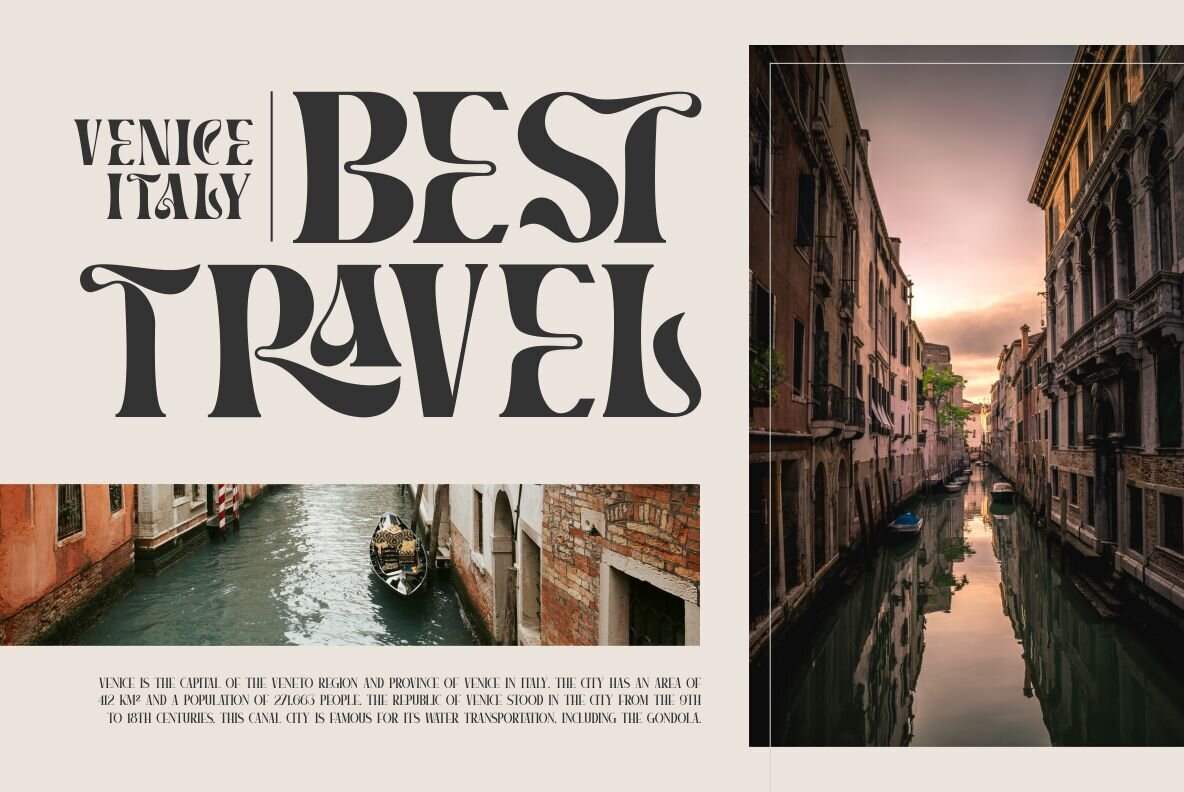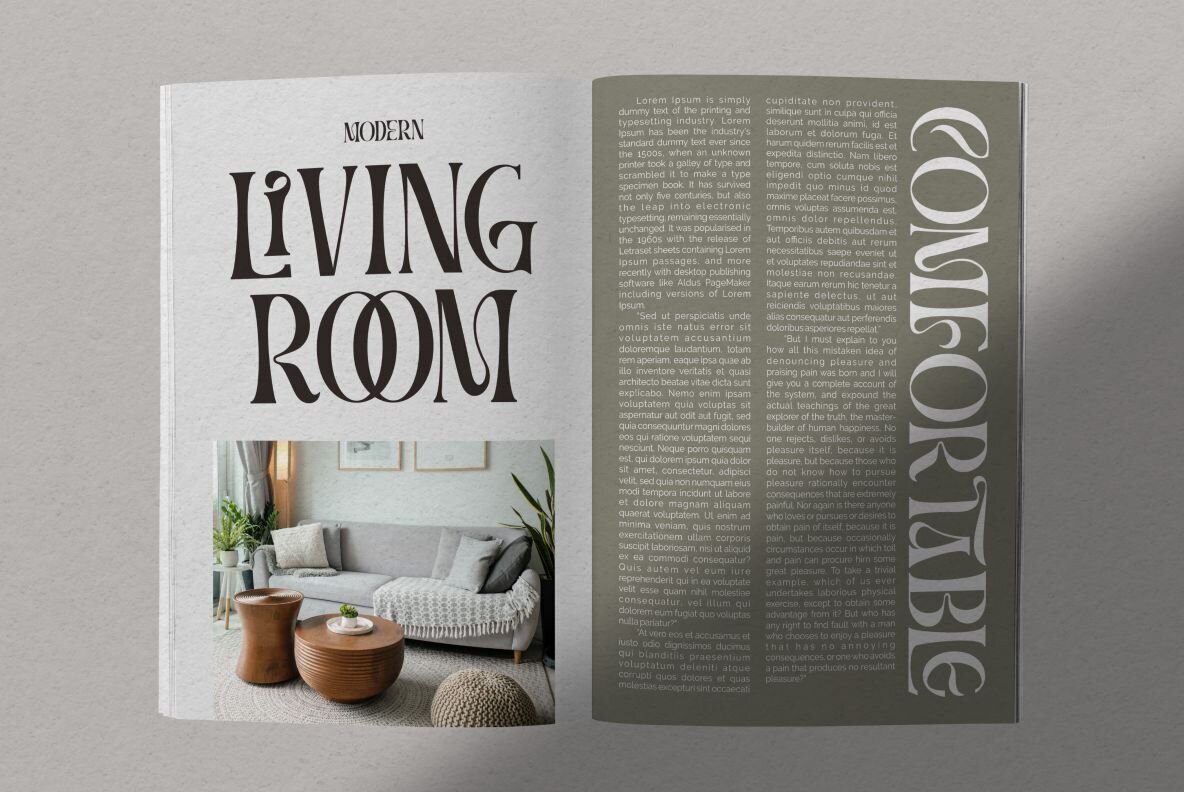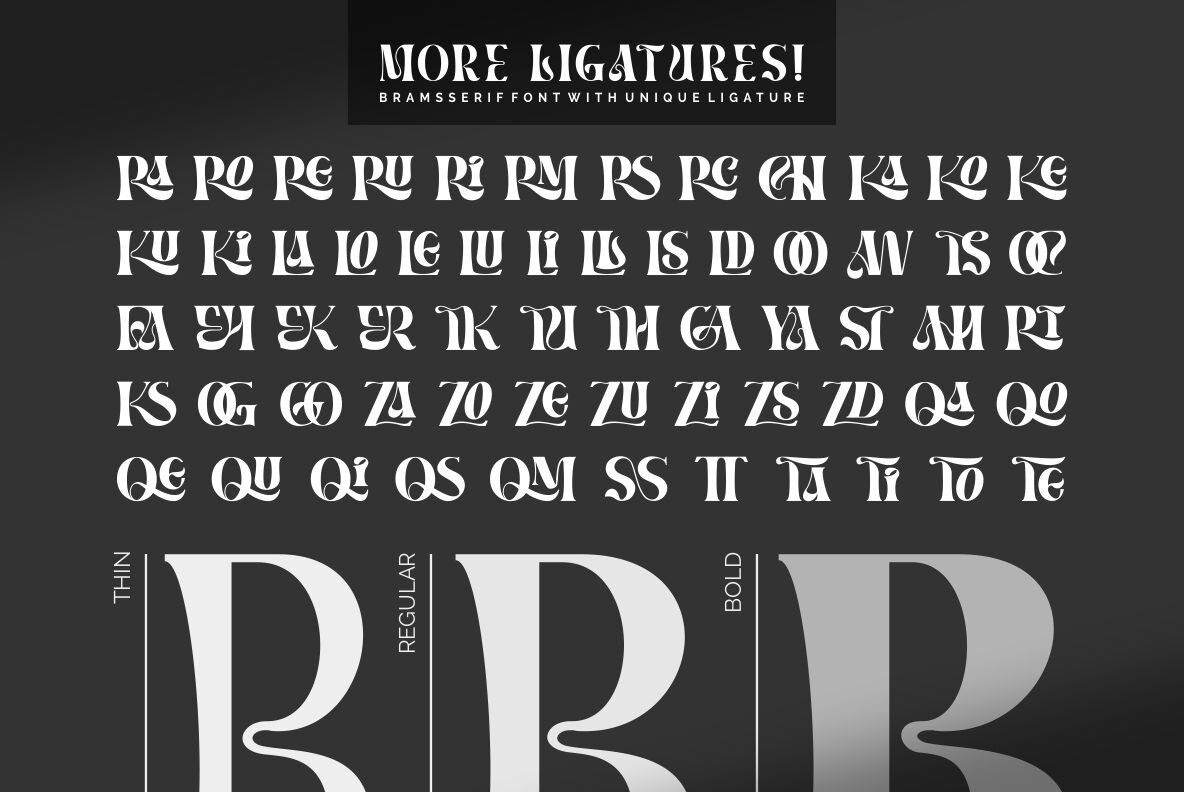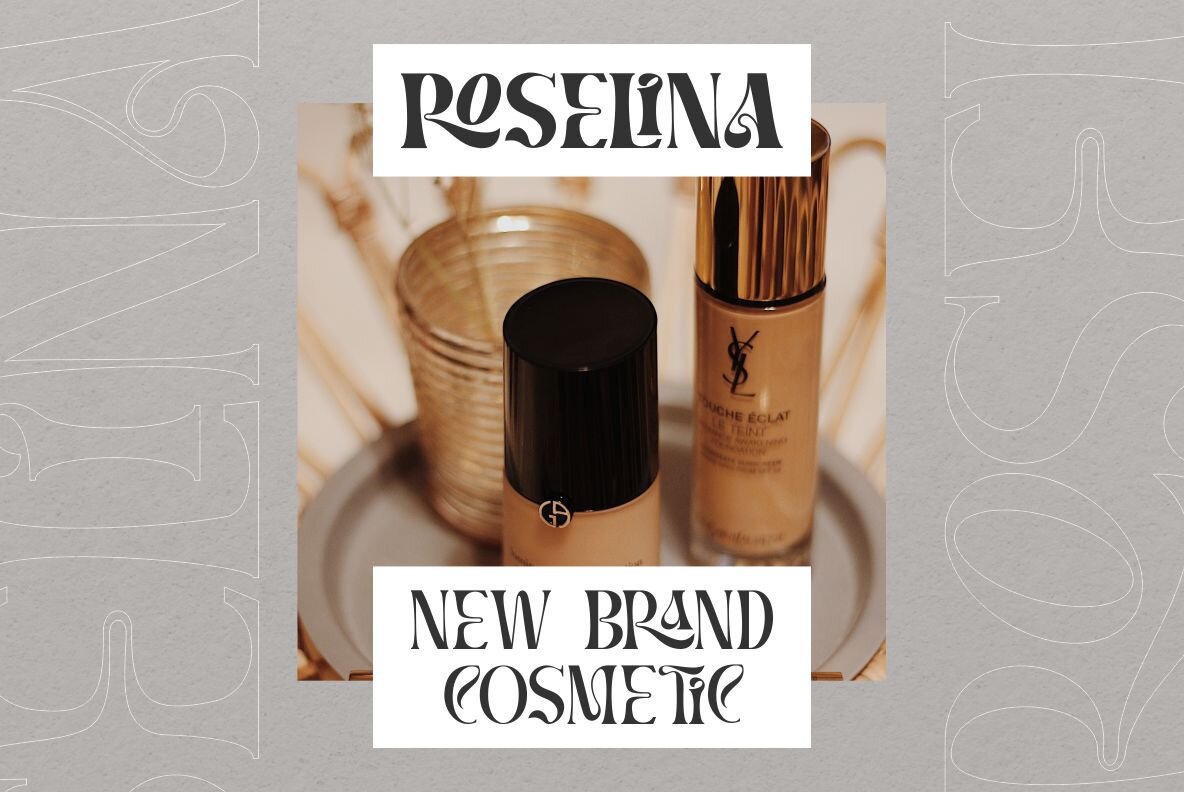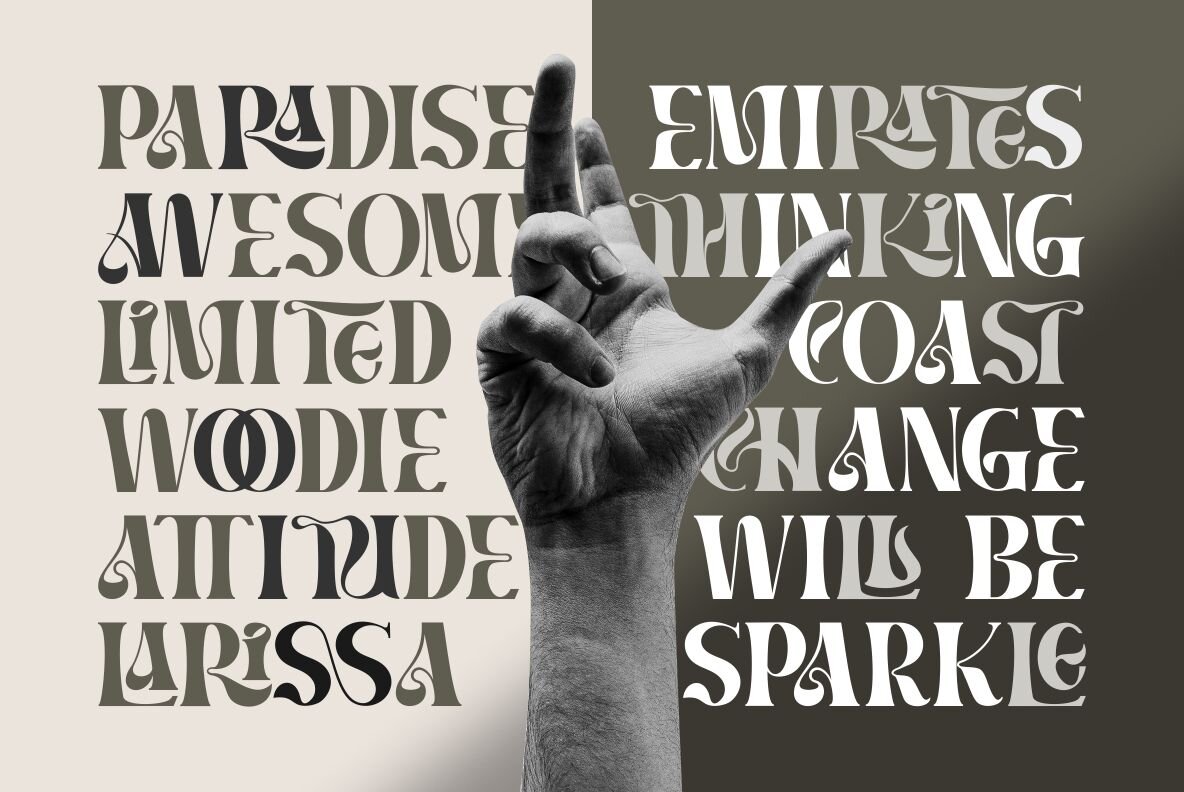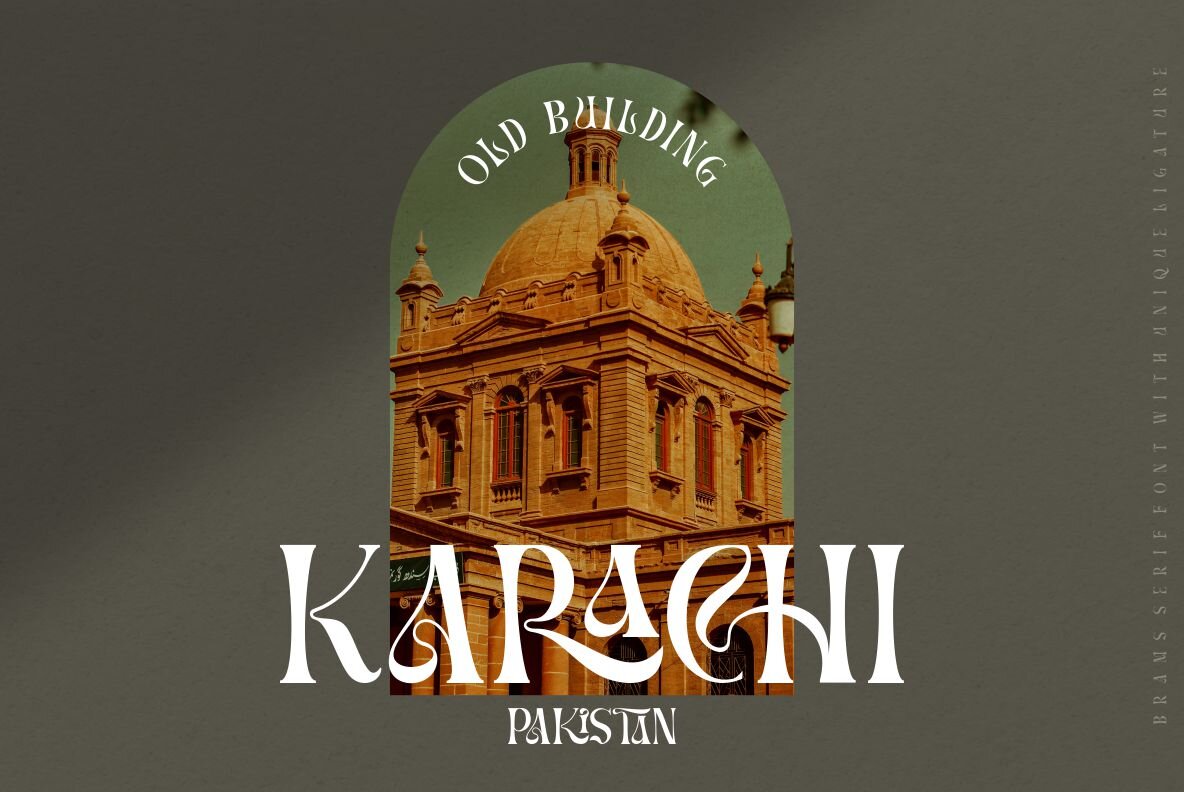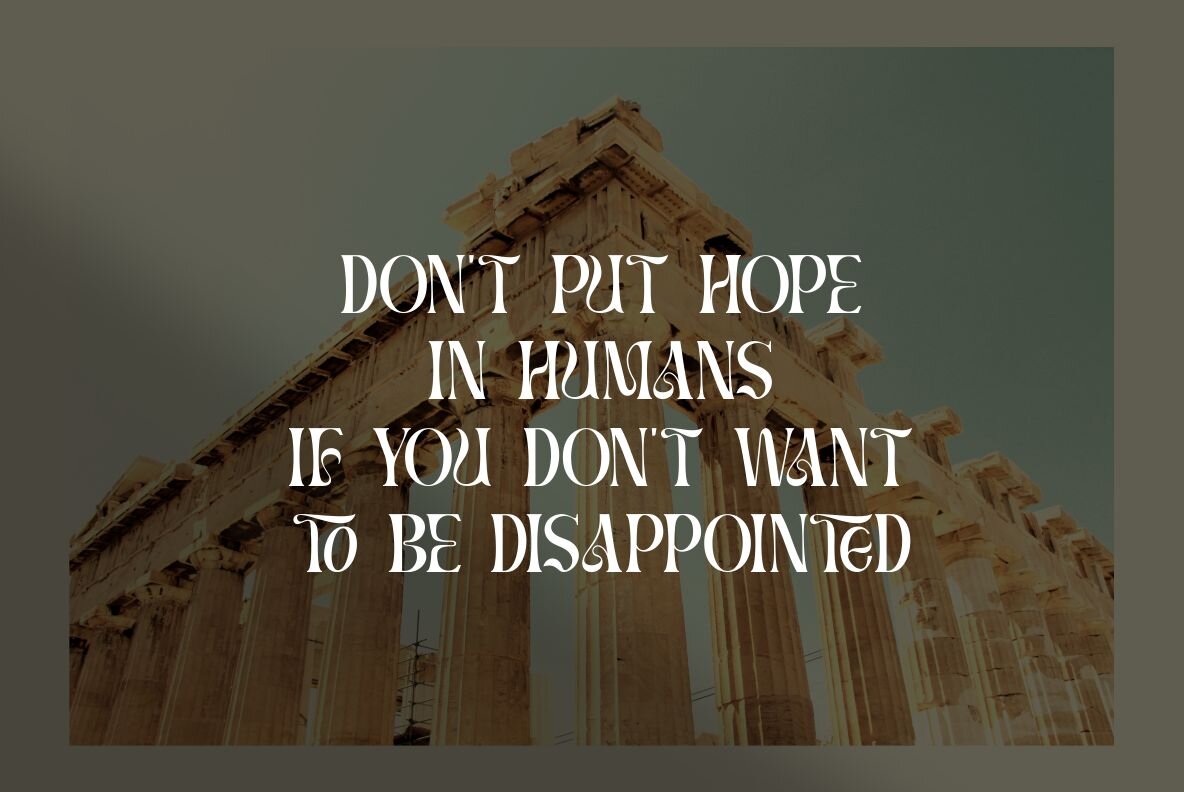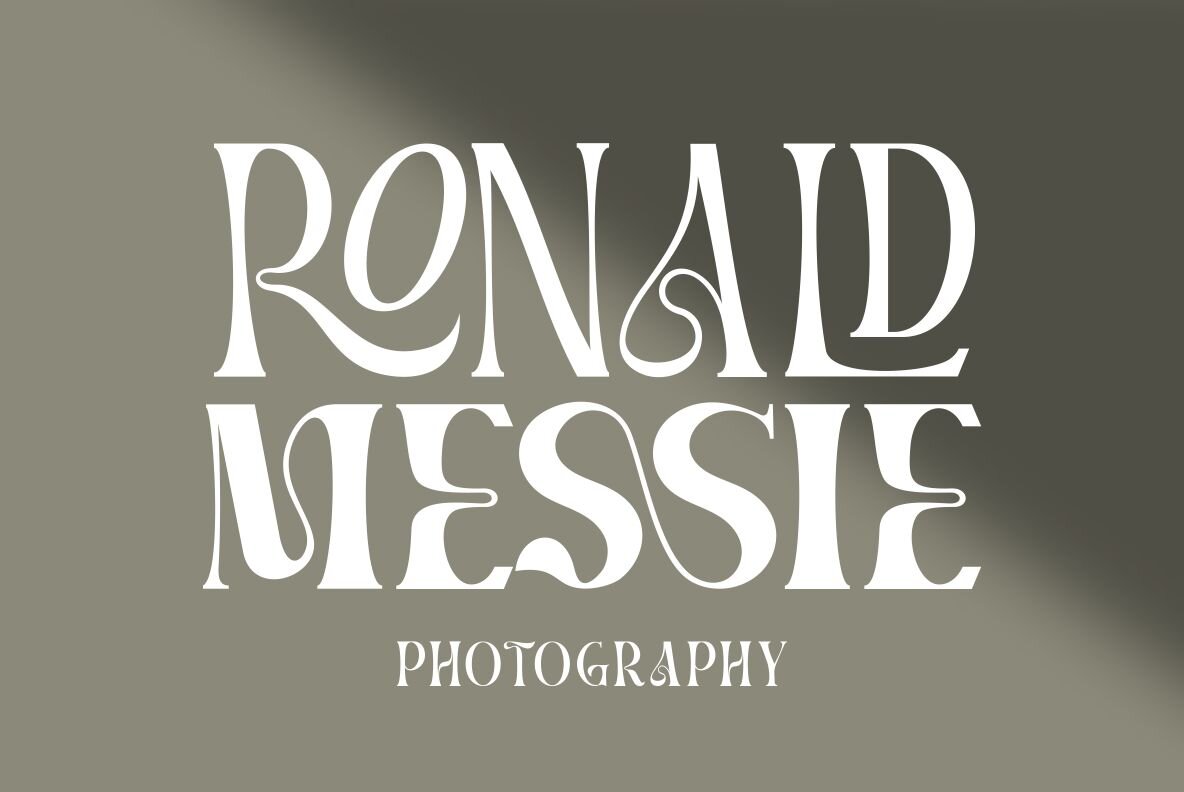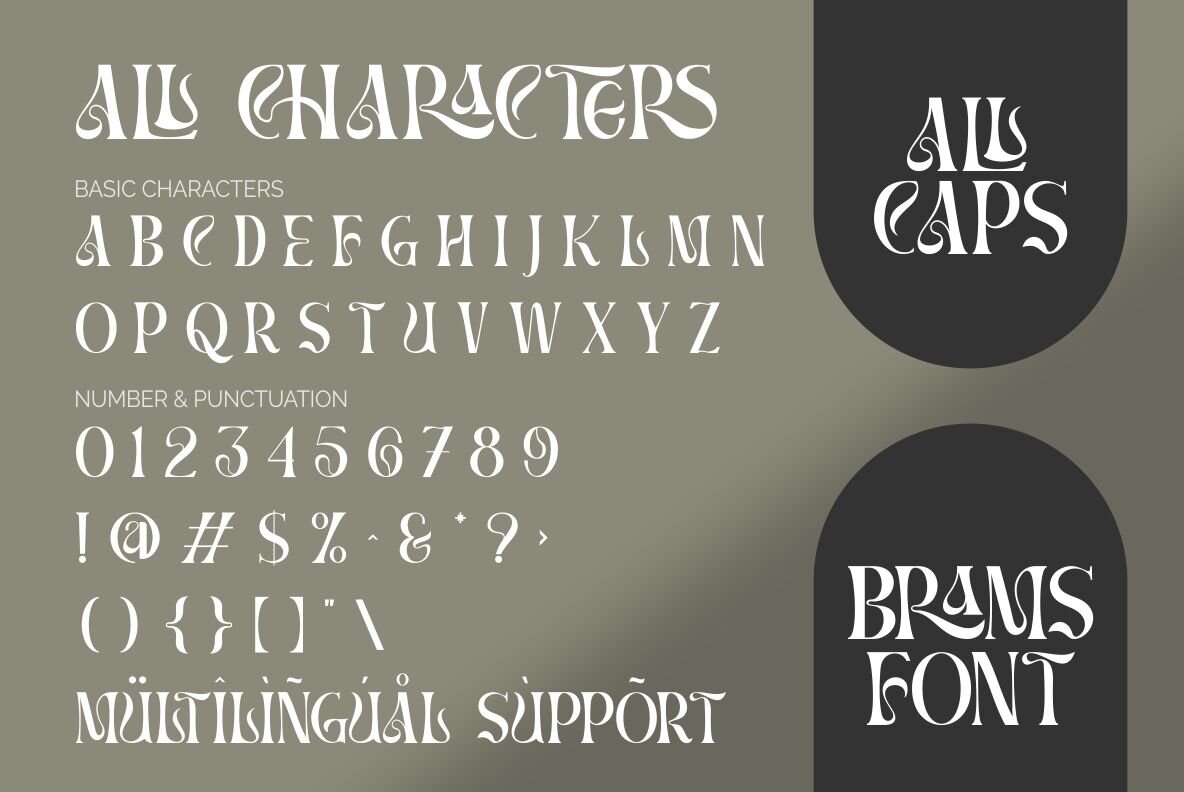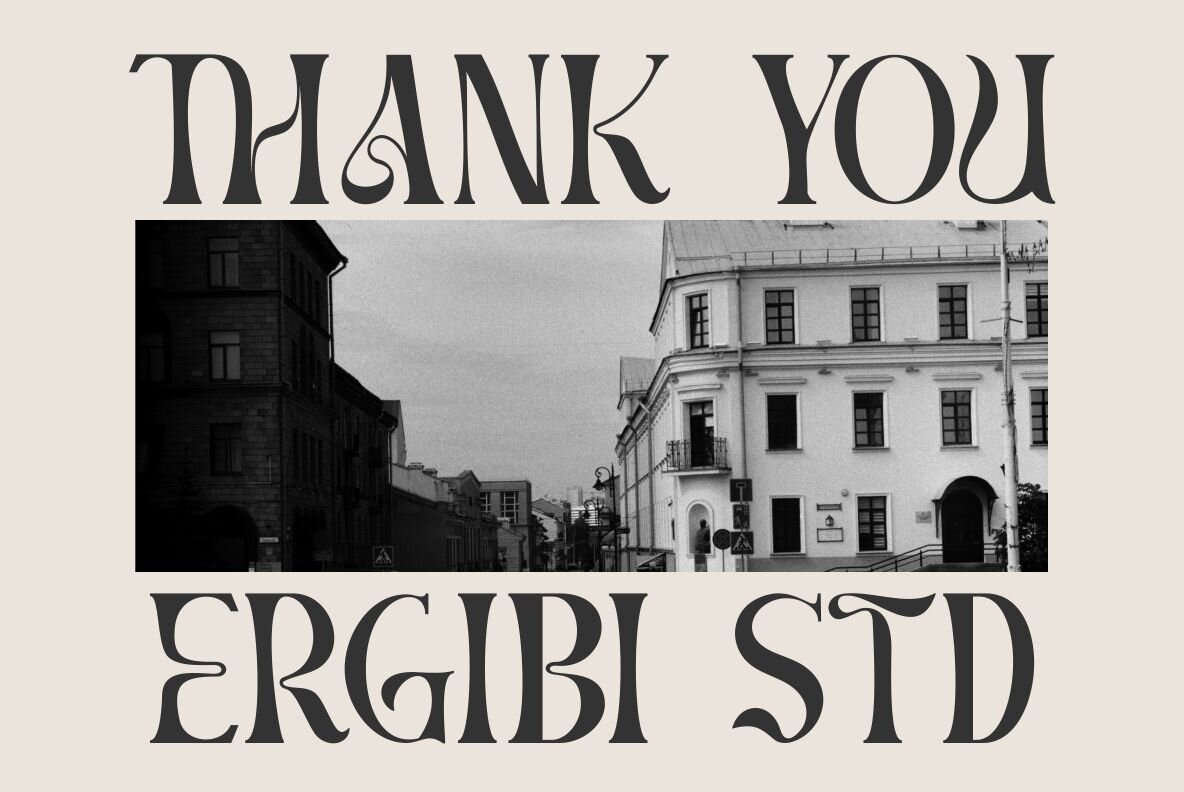
BRAMS Font
BRAMS by Ergibi Studio exemplifies the fusion of sleek aesthetics and functional design, making it an ideal choice for modern, minimalistic applications. Its distinctive ligatures set it apart from conventional serif fonts, enhancing its suitability for a wide range of creative uses. Whether for headlines, logos, or packaging, BRAMS provides a sophisticated touch that appeals to discerning designers.BRAMS Display Serif: A Modern Typeface for Elegant Design
The BRAMS Display Serif is perfect for creative professionals who seek an elegant typeface for logos, poster design, or any premium graphical presentation. Its range of features and modern styling ensure it will elevate your visual projects, no matter the medium.